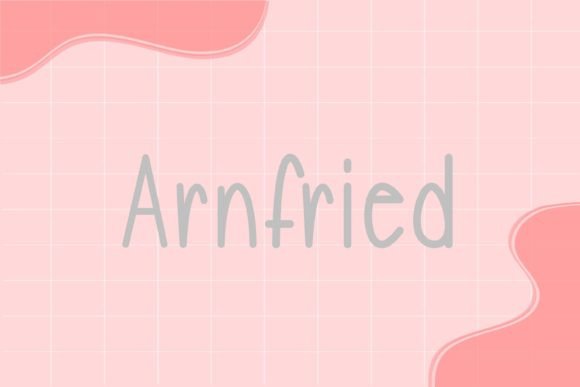
Introducing Arnfried Font: A Simple yet Whimsical Handwritten Font
In the world of typography, fonts play a crucial role in conveying the tone and personality of a brand or design. Among the numerous fonts available, Arnfried Font stands out as a simple and friendly handwritten font that can add a touch of whimsy to your designs. In this article, we’ll explore the features and benefits of Arnfried Font, and how it can elevate your designs to the next level.
What is Arnfried Font?
Arnfried Font is a modern, handwritten font designed to bring a sense of friendliness and approachability to your designs. Its simple yet quirky style makes it perfect for a wide range of applications, from logos and wedding invitations to quotes, advertisements, and more.
This font is carefully crafted to provide a unique and distinctive look that sets it apart from other fonts. Its clean lines, subtle curves, and balanced letter spacing make it easy to read and visually appealing.
Benefits of Using Arnfried Font
So, why choose Arnfried Font for your designs? Here are some benefits that make it an excellent choice:
- Unique and distinctive look: Arnfried Font has a one-of-a-kind style that will make your designs stand out from the crowd.
- Easy to read: The font’s clean lines and balanced letter spacing ensure that your text is easy to read, even at small sizes.
- Versatile: Arnfried Font is suitable for a wide range of applications, from logos and branding to print materials, digital media, and more.
- Whimsical and playful: This font adds a touch of whimsy and playfulness to your designs, making them more engaging and memorable.
How to Use Arnfried Font
Arnfried Font is a versatile font that can be used in various design projects. Here are some ideas to get you started:
- Logos and branding: Use Arnfried Font to create a unique and memorable logo that reflects your brand’s personality.
- Wedding invitations: Add a touch of whimsy and romance to your wedding invitations with Arnfried Font.
- Quotes and posters: Use this font to create eye-catching quotes and posters that will grab attention.
- Advertisements: Arnfried Font is perfect for creating ads that are playful, yet professional.
- Print materials: Use this font in brochures, flyers, and other print materials to add a touch of personality.
- Digital media: Arnfried Font is suitable for use in digital media, including social media graphics, email newsletters, and more.
Pairing Arnfried Font with Other Fonts
To create visually appealing designs, it’s essential to pair Arnfried Font with other fonts that complement its style. Here are some font pairing suggestions:
- Open Sans: This clean and modern sans-serif font pairs well with Arnfried Font’s playful style.
- Lato: This elegant sans-serif font complements Arnfried Font’s whimsical style, creating a balanced look.
- Merriweather: This classic serif font pairs well with Arnfried Font, adding a touch of sophistication to your designs.
In conclusion, Arnfried Font is a simple yet whimsical handwritten font that can add a touch of personality to your designs. Its unique and distinctive look, ease of readability, and versatility make it an excellent choice for a wide range of applications. Whether you’re designing a logo, wedding invitation, or advertisement, Arnfried Font is sure to brighten up your designs and leave a lasting impression.